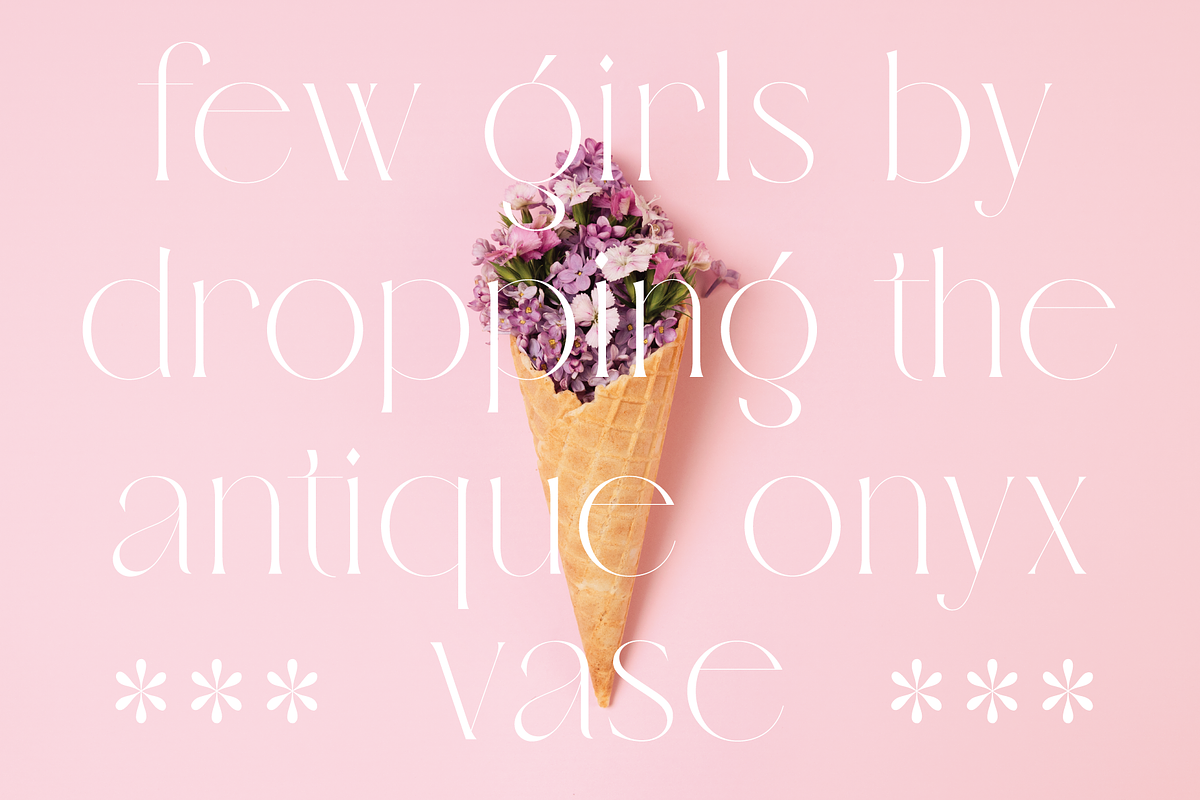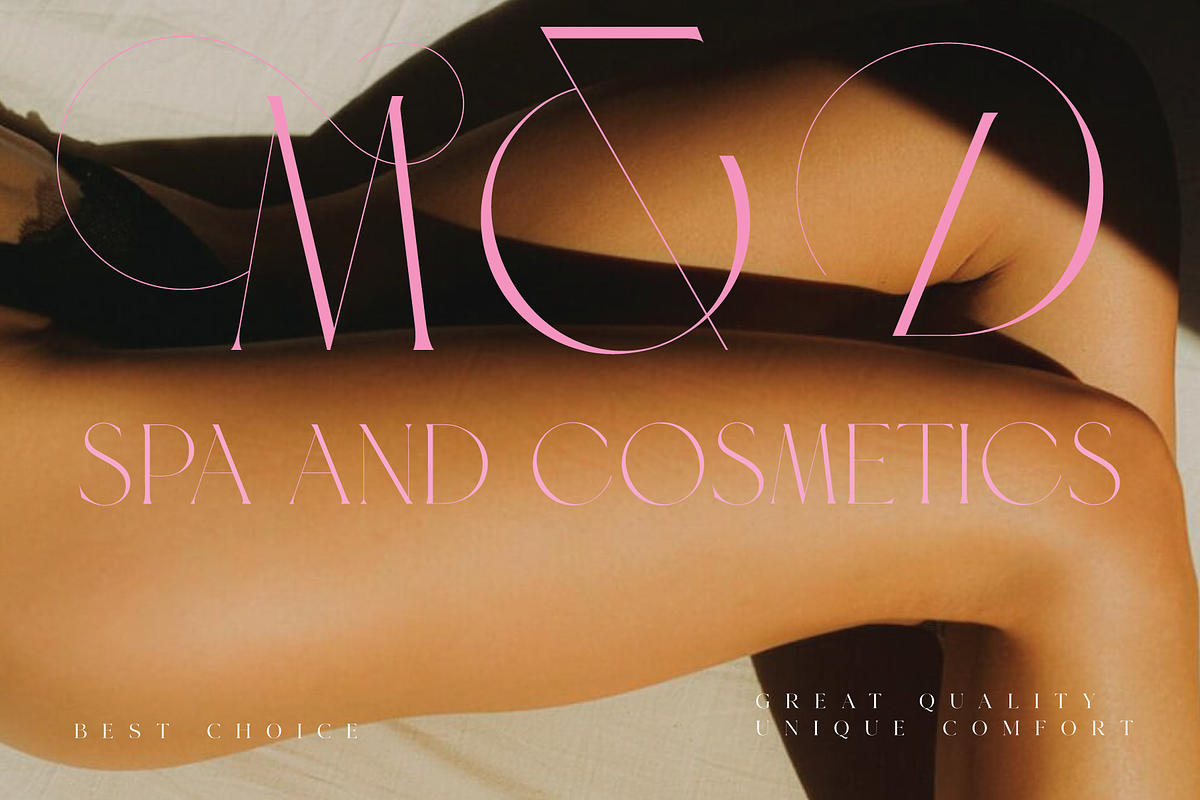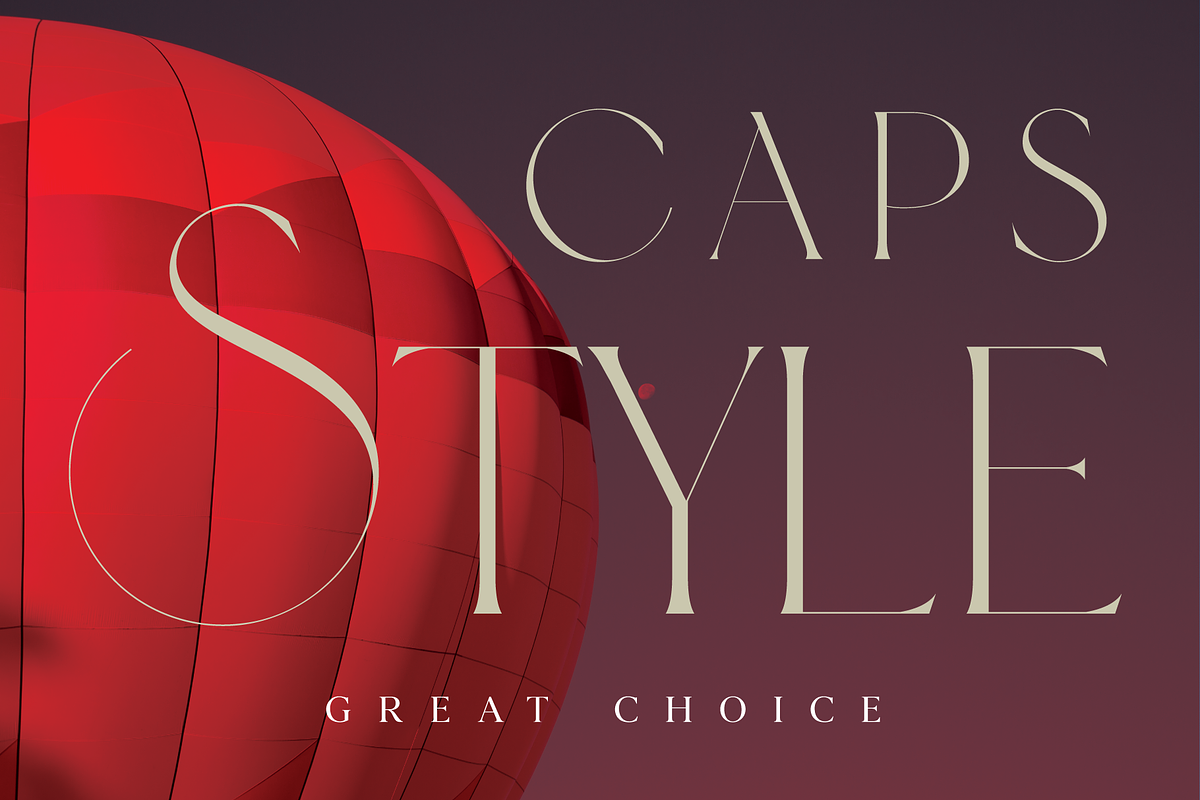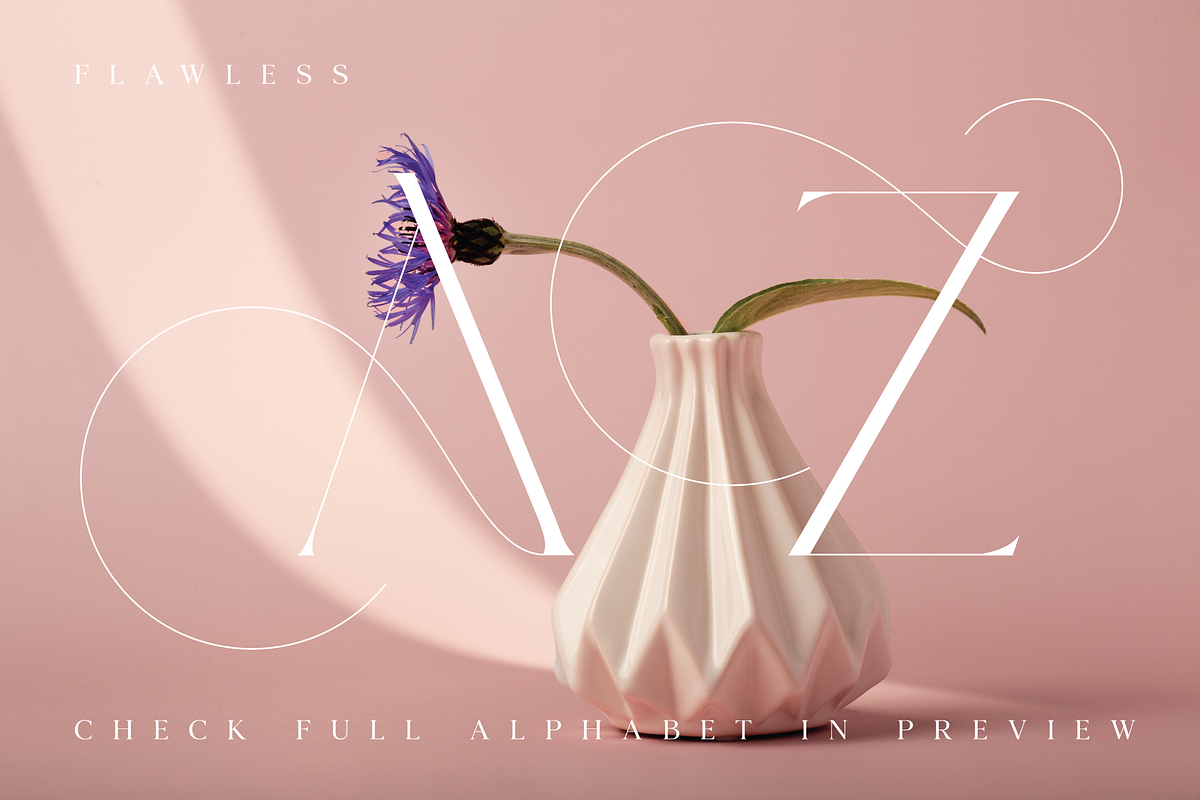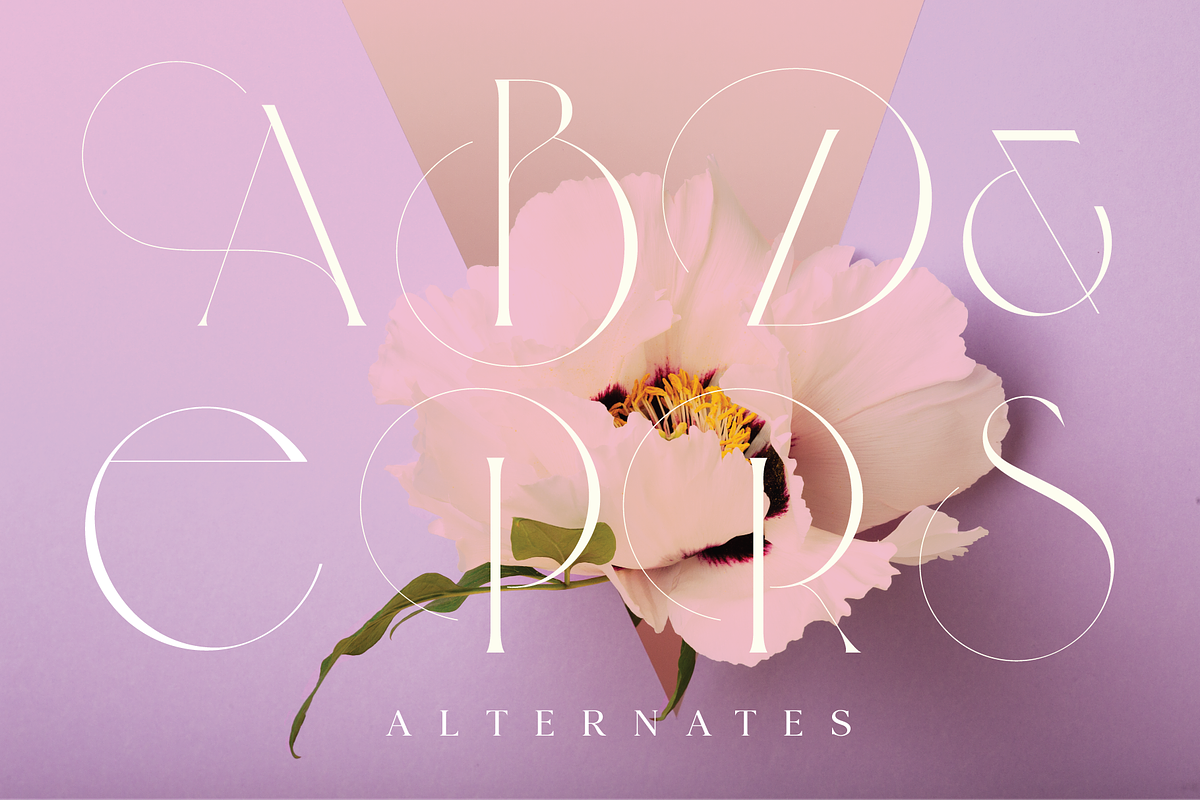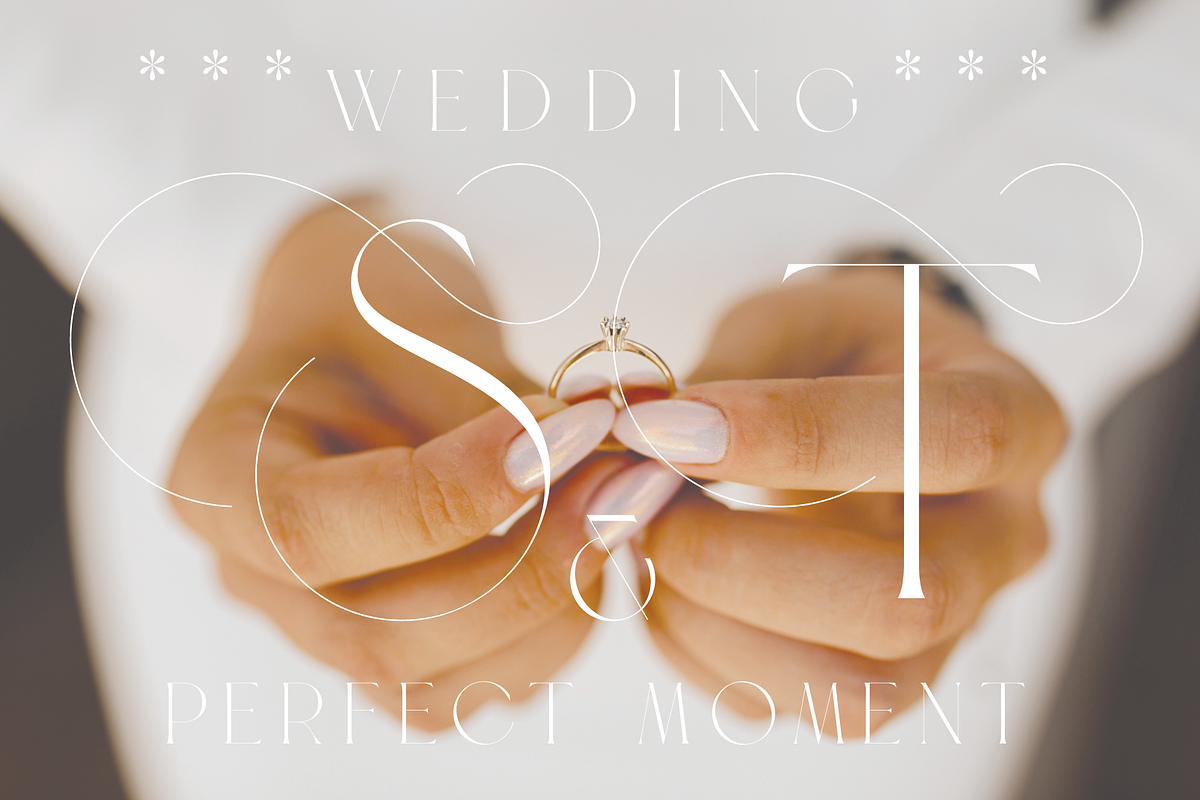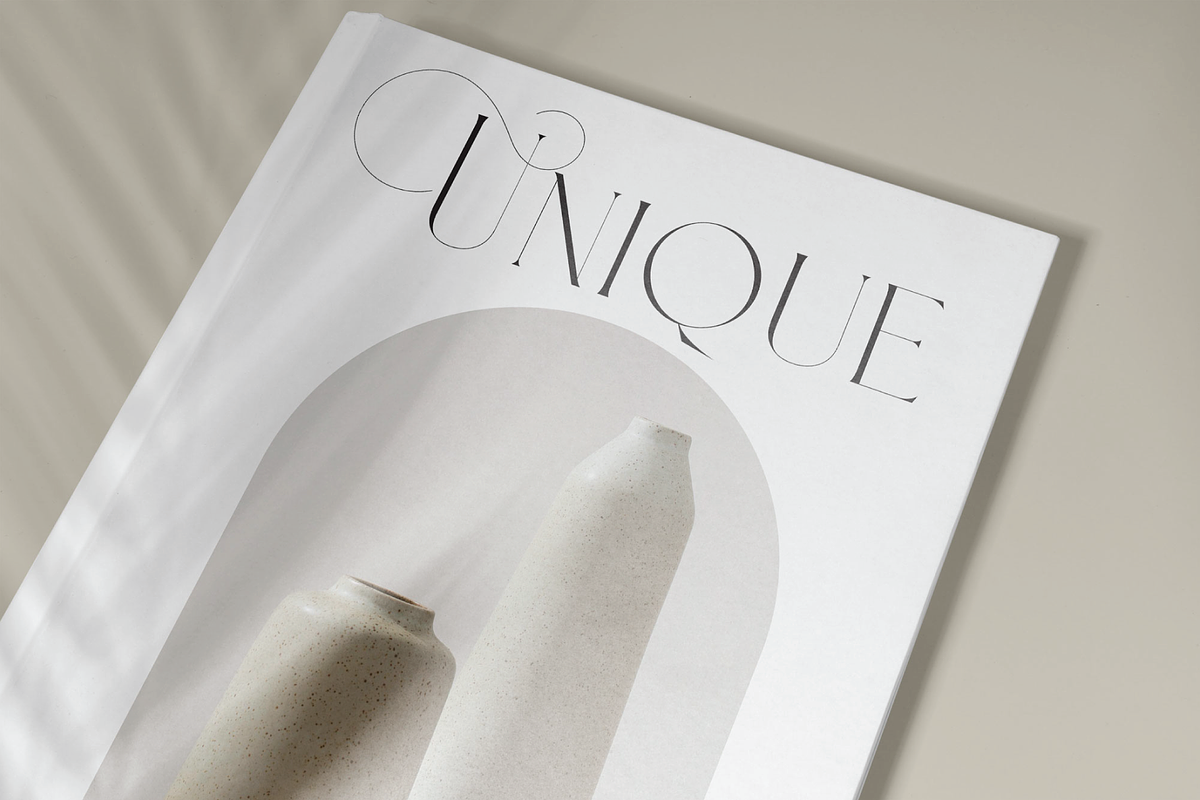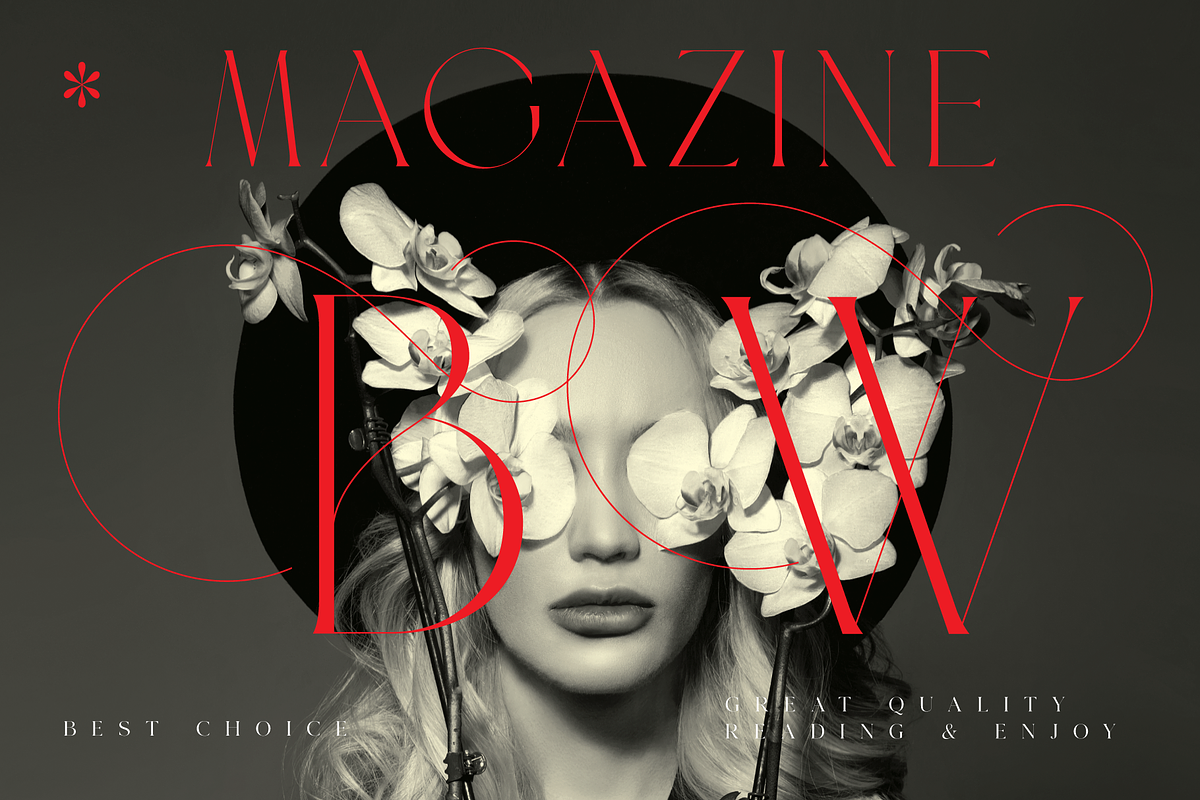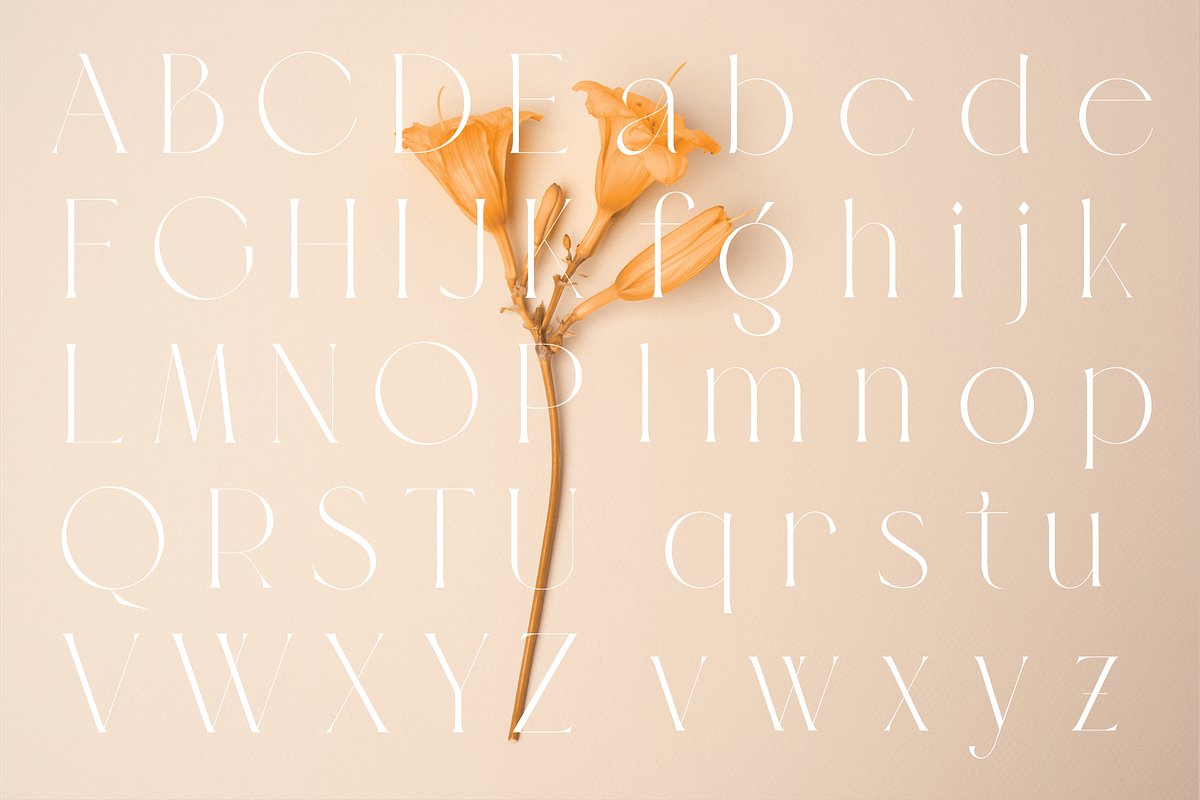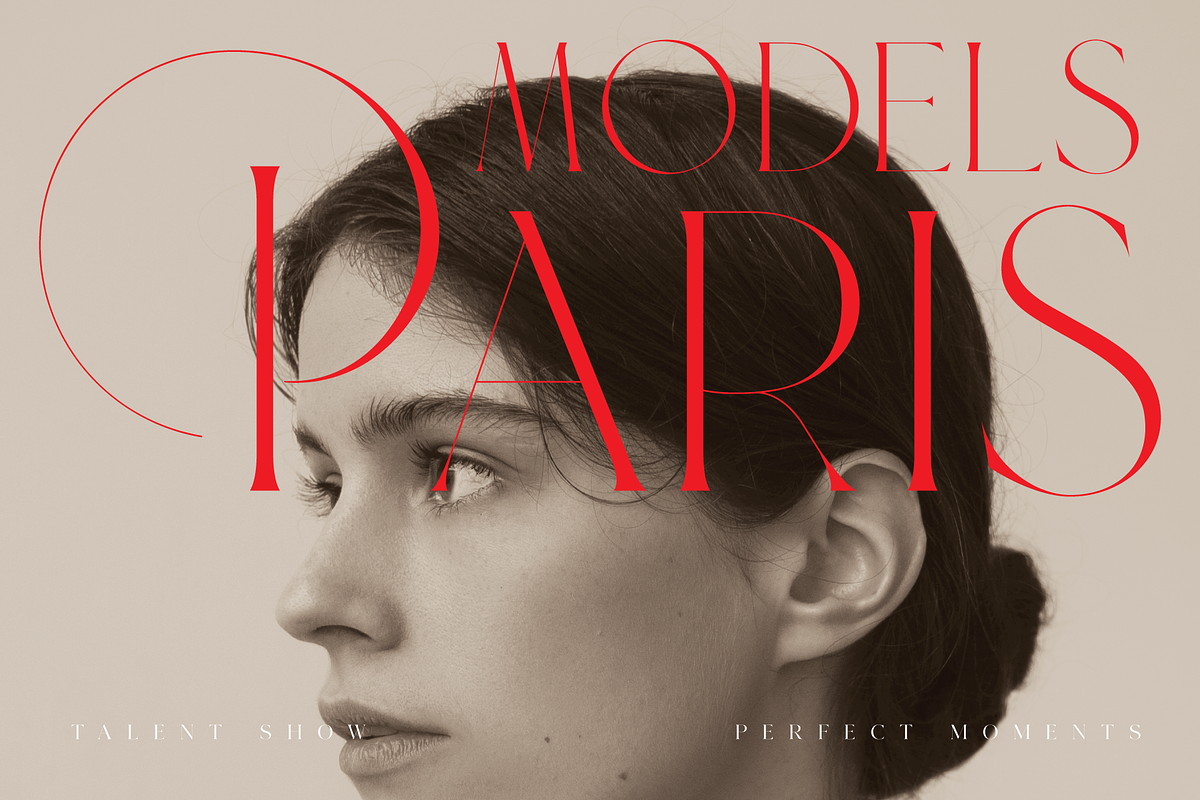
Veilan Serif Delicate font
Introducing Veilan, a thin, serif font that exudes elegance, luxury, sophistication, and richness. With its sleek, stylish lines and intricate alternates, Veilan is a font that is sure to impress.
Veilan's character set includes upper and lowercase letters, numbers, and punctuation, making it a versatile font that can be used for a variety of projects. The font's thin and delicate strokes give it an air of refinement, perfect for high-end designs such as logos, packaging, invitations, and branding.
In summary, Veilan is a unique, sophisticated font that features intricate details and elegant lines. Its versatile character set and beautiful alternates make it a must-have for designers looking to elevate their work and add a touch of luxury to their designs.